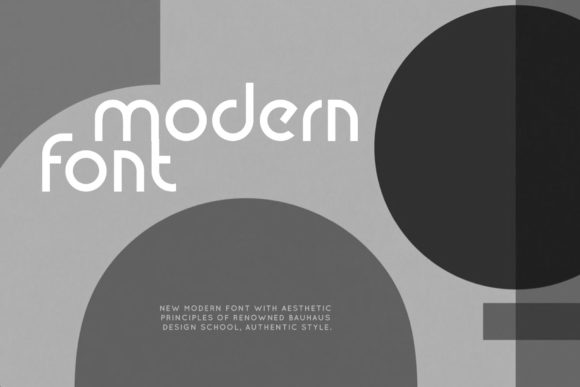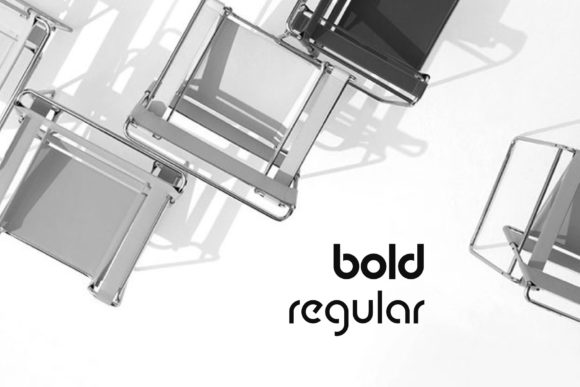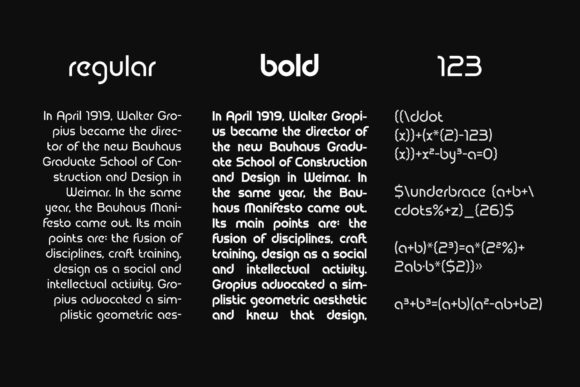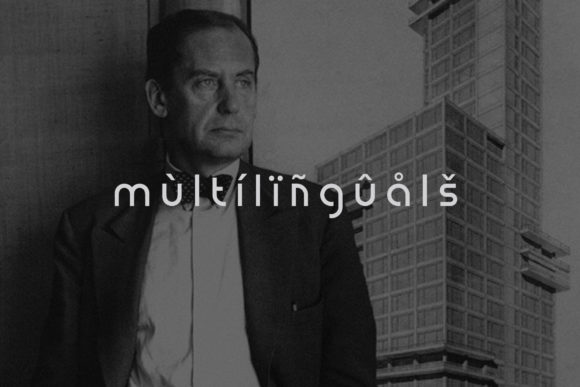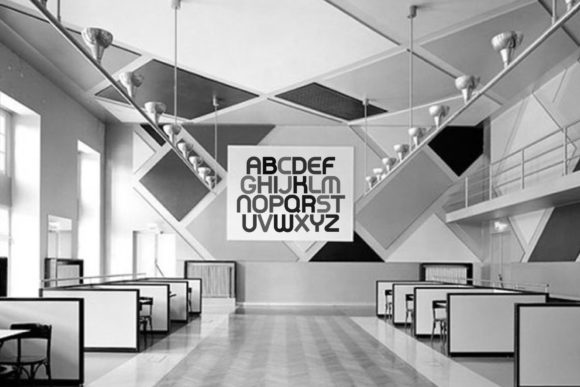
Hausbau Font: The Ultimate Choice for Modern Designers
In the world of typography, fonts play a crucial role in conveying the tone and personality of a brand or design. For designers and crafters looking for a unique and modern touch, Hausbau Font is an excellent choice. This simple and minimalist display font has gained popularity for its clean lines, elegant appearance, and versatility. In this article, we’ll explore the features, benefits, and uses of Hausbau Font, and why it’s an ideal choice for your next design project.
What is Hausbau Font?
Hausbau Font is a sans-serif display font designed with simplicity and elegance in mind. Its minimalist approach makes it perfect for designs that require a clean and modern look. The font features clean lines, subtle curves, and a unique character set that sets it apart from other fonts. Hausbau Font is ideal for writing web designs, business cards, or pretty much anything else that requires a unique touch.
Key Features of Hausbau Font
- Simple and Minimalist: Hausbau Font boasts a simple and minimalist design, making it perfect for modern designs.
- Elegant Appearance: The font features clean lines, subtle curves, and a unique character set that gives it an elegant appearance.
- Versatile: Hausbau Font is versatile and can be used for various design projects, including web designs, business cards, posters, and more.
- Easy to Read: The font is easy to read, even at small sizes, making it perfect for designs that require a clear and concise message.
Benefits of Using Hausbau Font
Using Hausbau Font in your design projects offers several benefits. Here are a few:
- Unique Touch: Hausbau Font adds a unique touch to your designs, setting them apart from others.
- Modern Look: The font gives your designs a modern and fresh look, perfect for brands and businesses looking to update their image.
- Flexibility: Hausbau Font is flexible and can be used for various design projects, from web designs to print materials.
- Easy to Pair: The font is easy to pair with other fonts, making it perfect for designs that require a combination of fonts.
Uses of Hausbau Font
Hausbau Font is a versatile font that can be used for various design projects. Here are a few examples:
- Web Designs: Hausbau Font is perfect for web designs, including website headers, titles, and descriptions.
- Business Cards: The font is ideal for business cards, adding a unique touch to your professional cards.
- Posters and Flyers: Hausbau Font can be used for posters and flyers, giving them a modern and fresh look.
- Social Media Graphics: The font is perfect for social media graphics, including Facebook and Twitter headers.
Tips for Using Hausbau Font
Here are a few tips for using Hausbau Font in your design projects:
- Use it as a Display Font: Hausbau Font is designed as a display font, so use it for titles, headers, and descriptions.
- Pair it with Other Fonts: The font is easy to pair with other fonts, so experiment with different combinations to find the perfect match.
- Adjust the Size: Hausbau Font is clear and easy to read, even at small sizes, so adjust the size according to your design needs.
In conclusion, Hausbau Font is a simple and minimalist display font that offers a unique touch to your design projects. Its elegant appearance, versatility, and ease of use make it an ideal choice for modern designers and crafters. Whether you’re designing a website, business card, or poster, Hausbau Font is a great choice. So, download Hausbau Font today and take your designs to the next level!